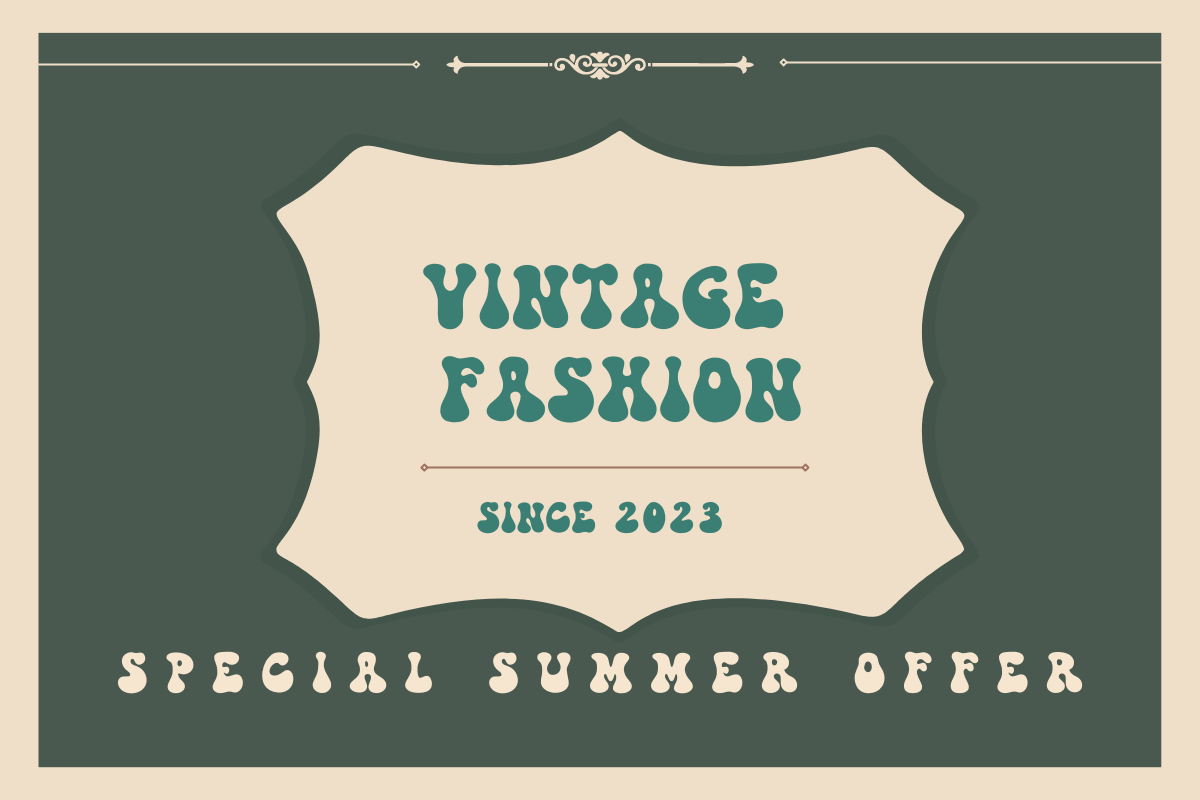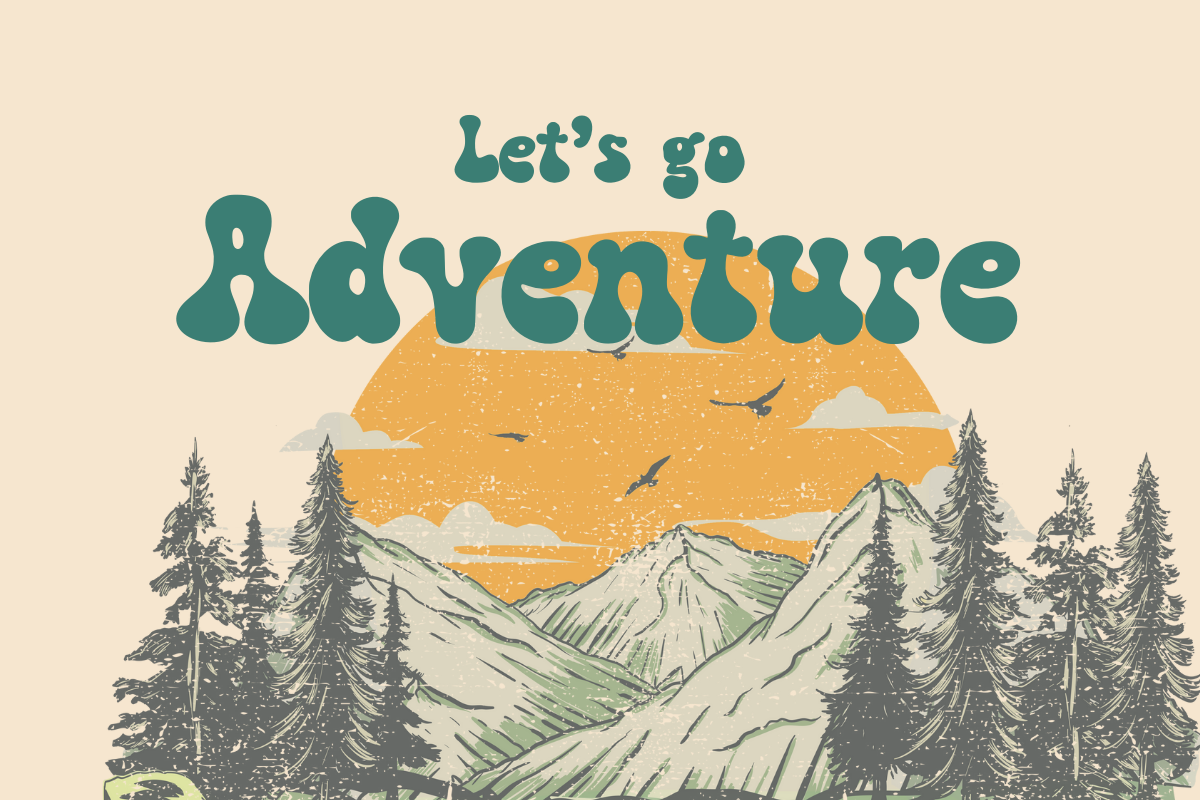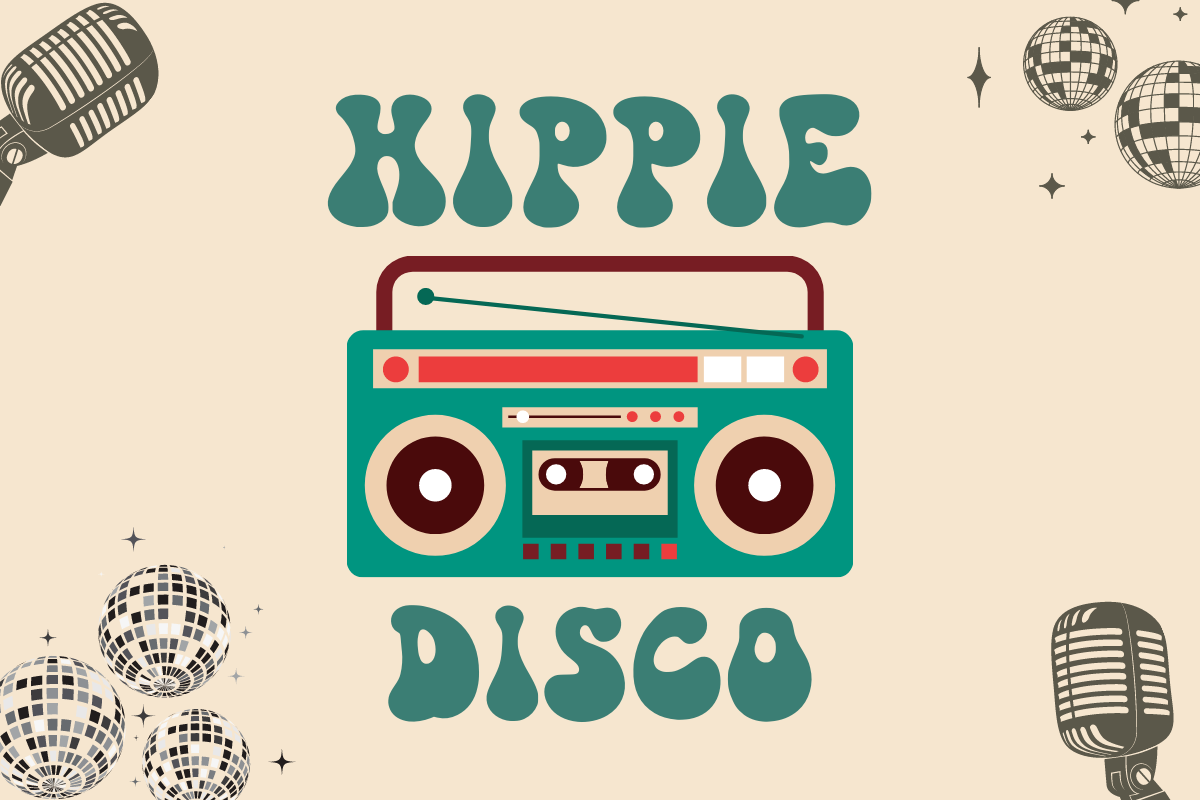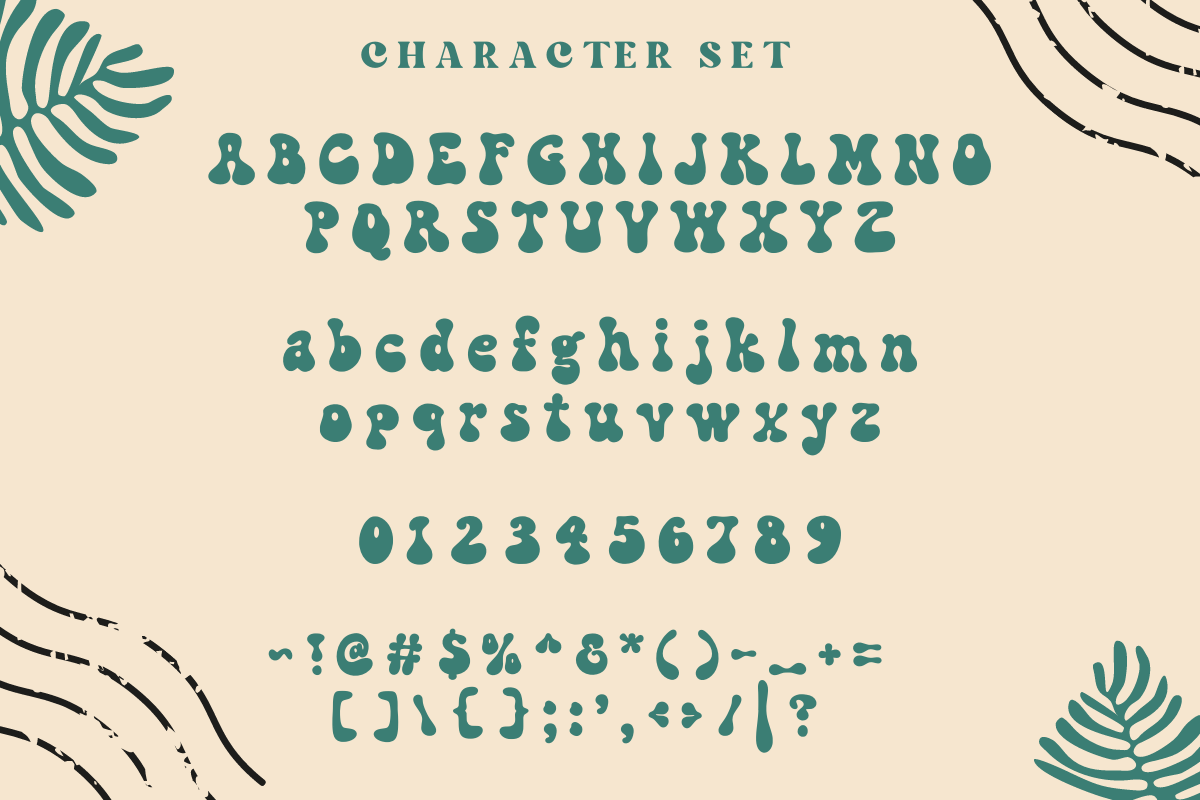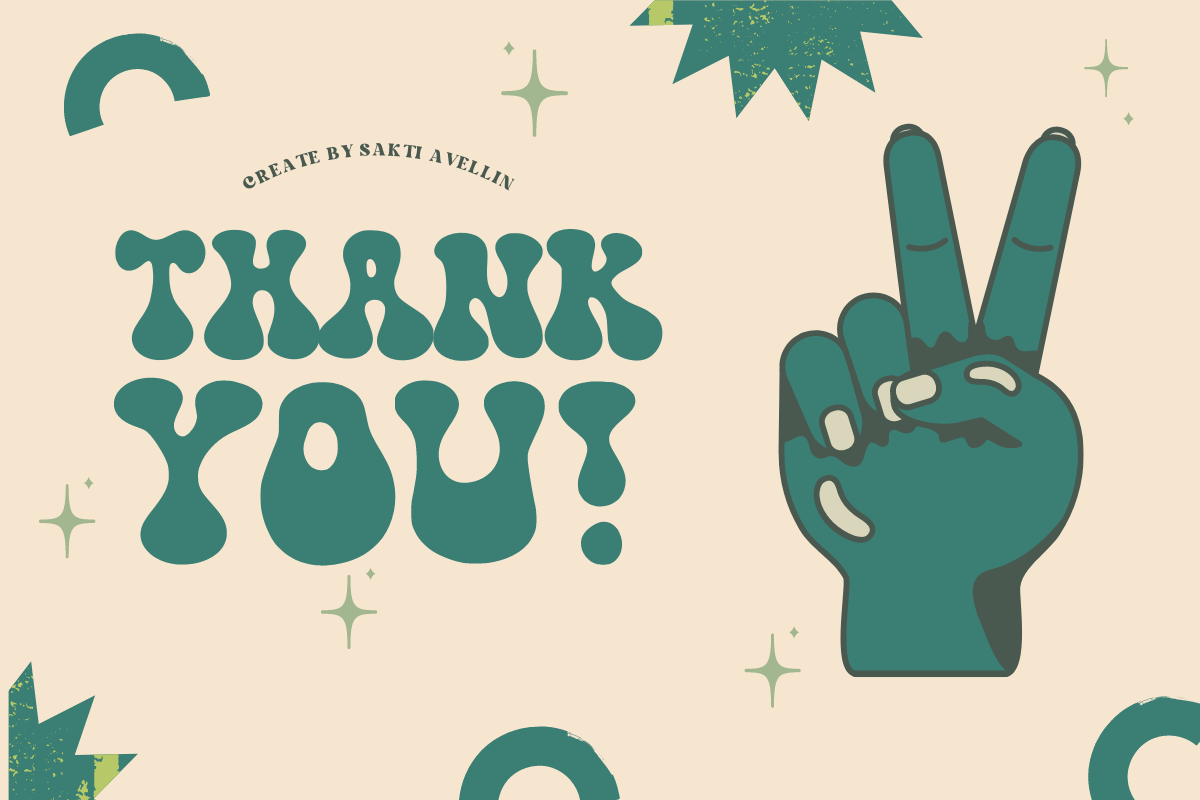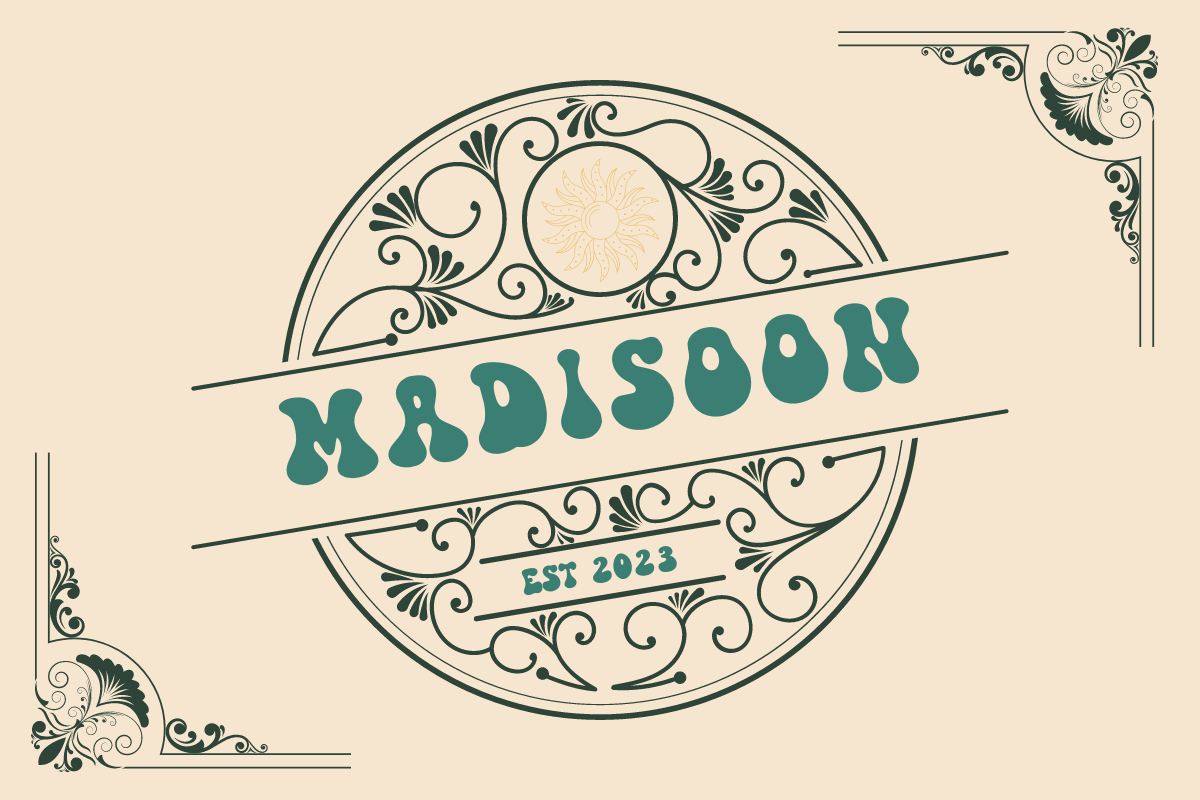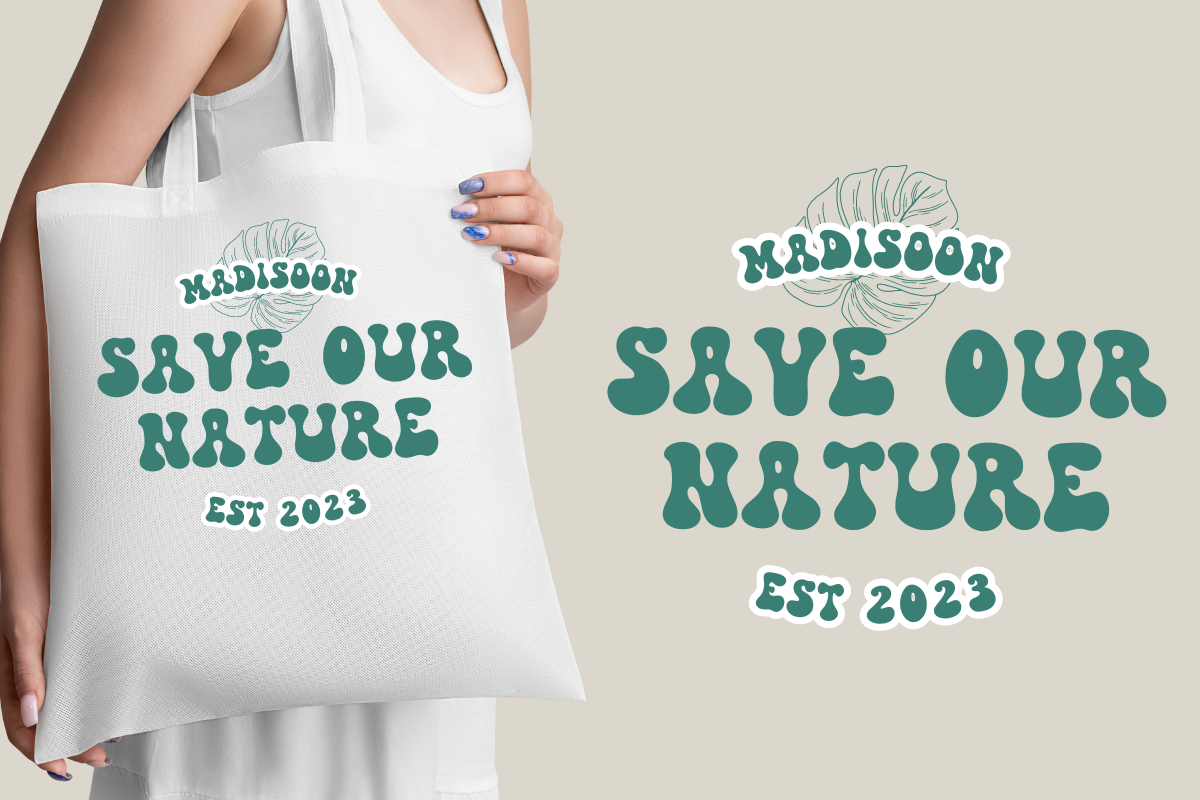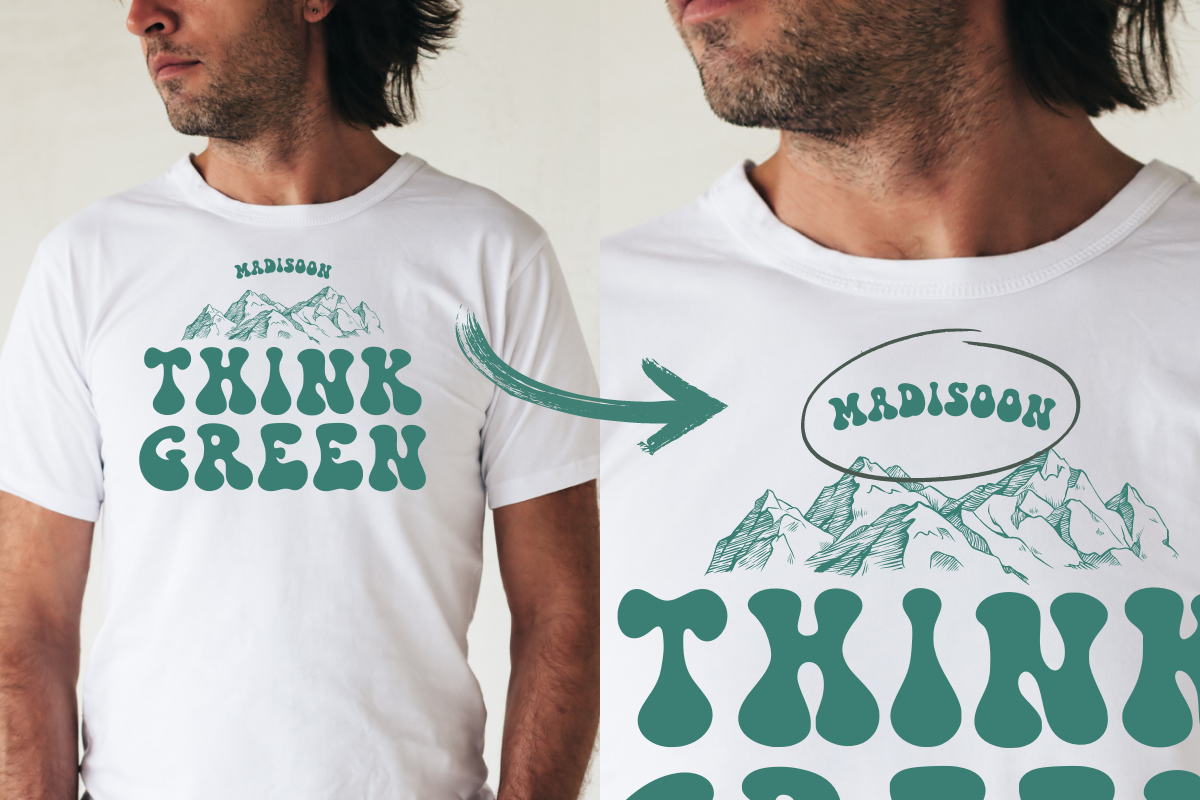
Madisoon
Meet Madisoon, a delightful blend of nostalgia and joy in a font style. This vibrant and buoyant font is perfect for adding a playful, cheery dash to your design. Ideal for book covers, eye-catching posters, unique packaging, appealing merchandise, distinctive logotypes, and beyond! Revel in the versatility of Madisoon, available in both OTF and TTF formats. Wrap your designs with the charming retro vibe that Madisoon offers, and make your creations sing with character and joy.